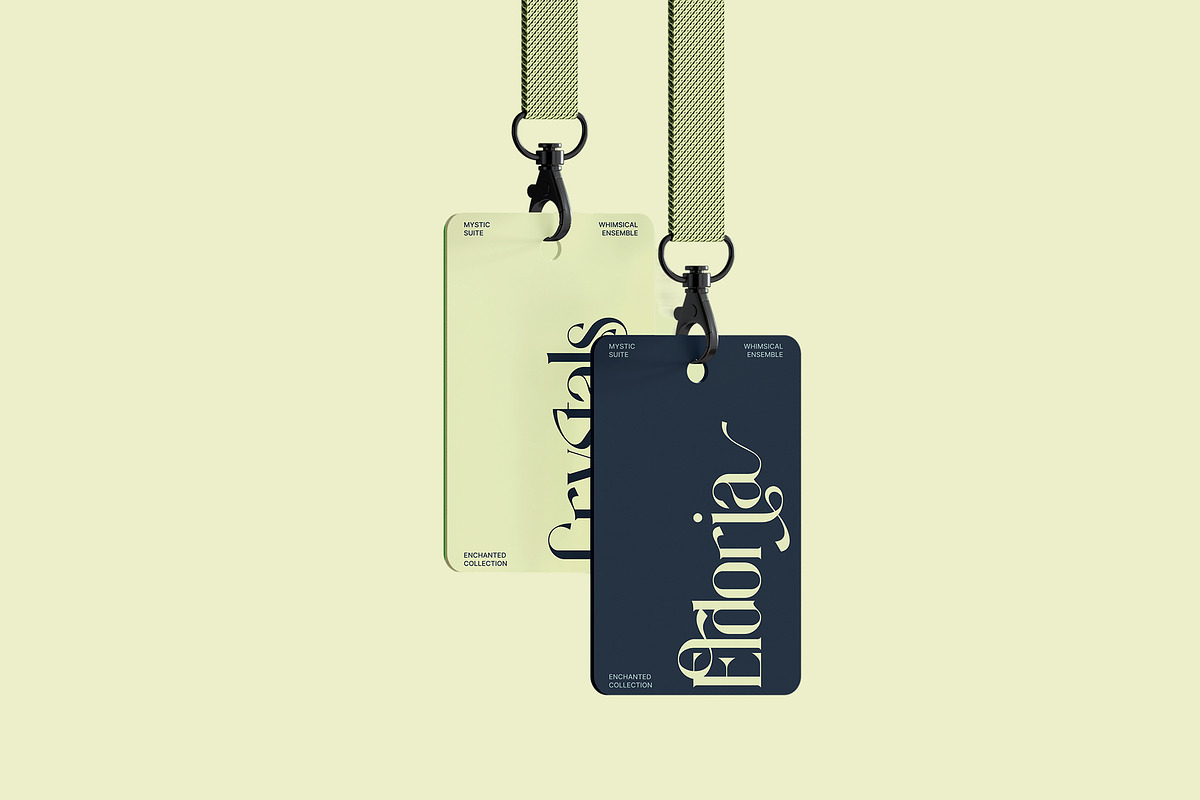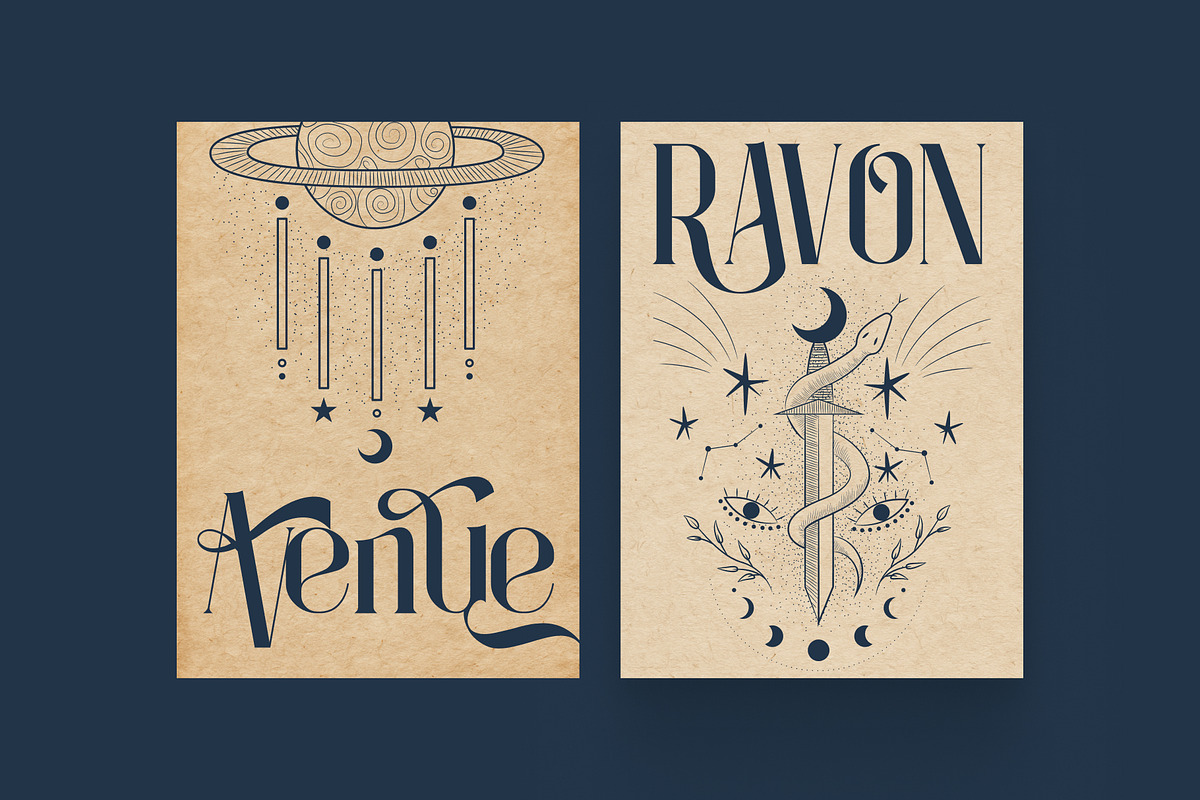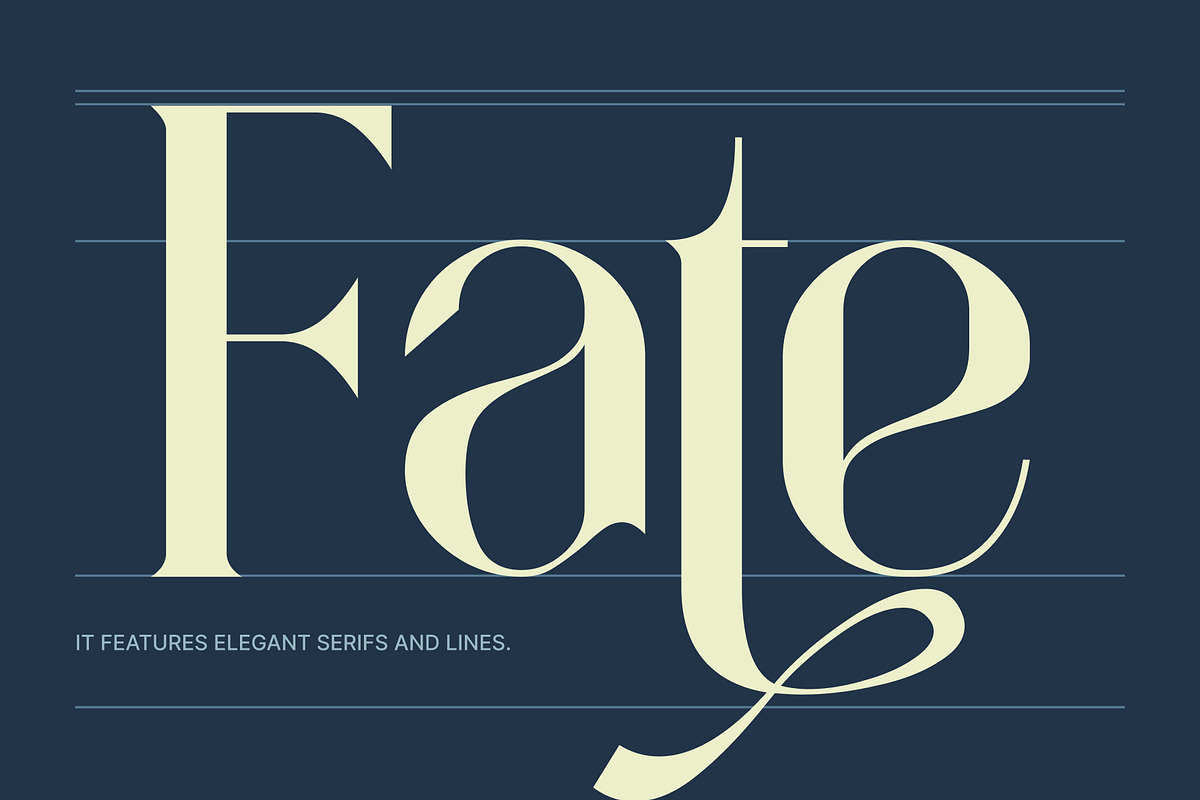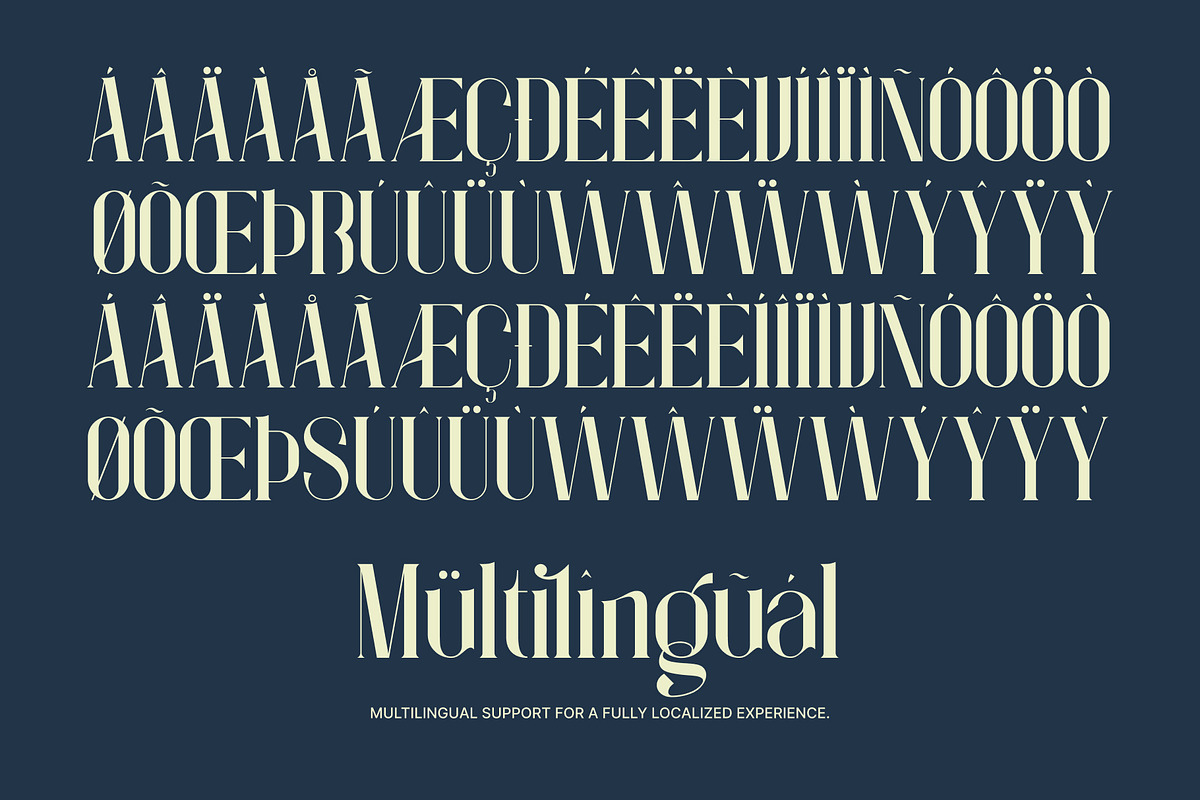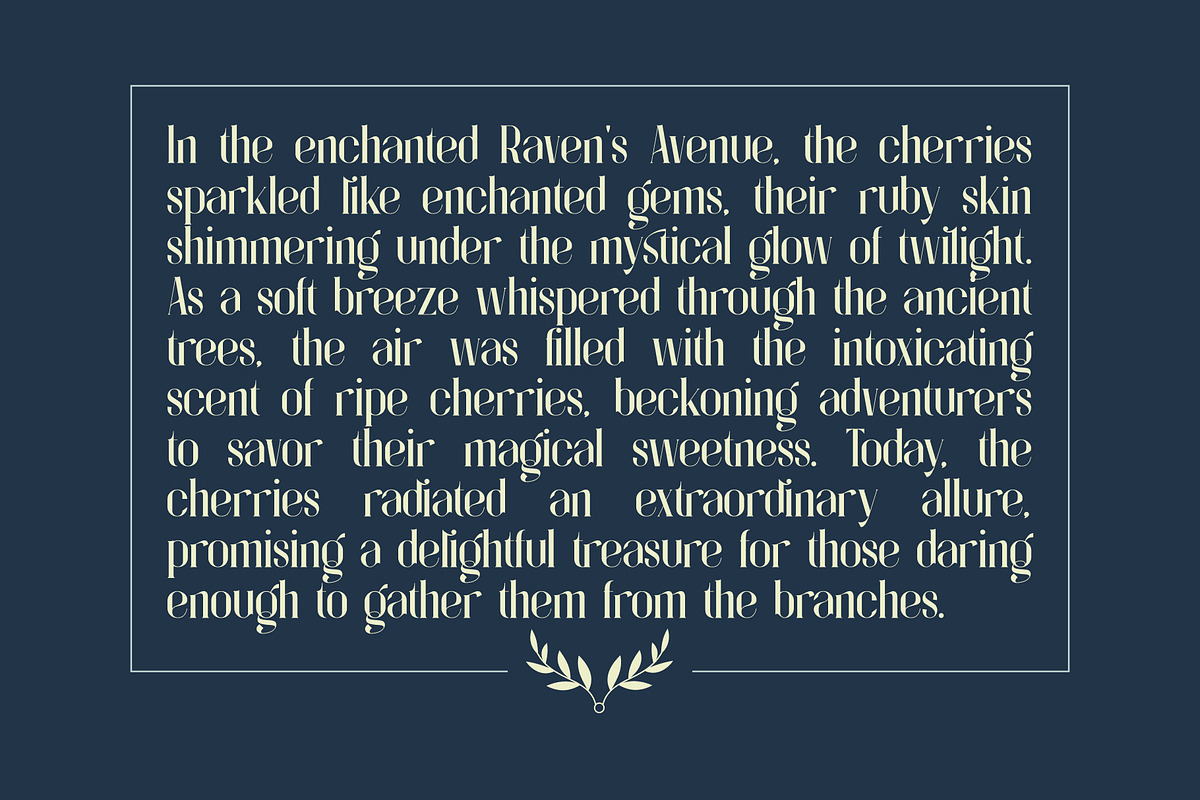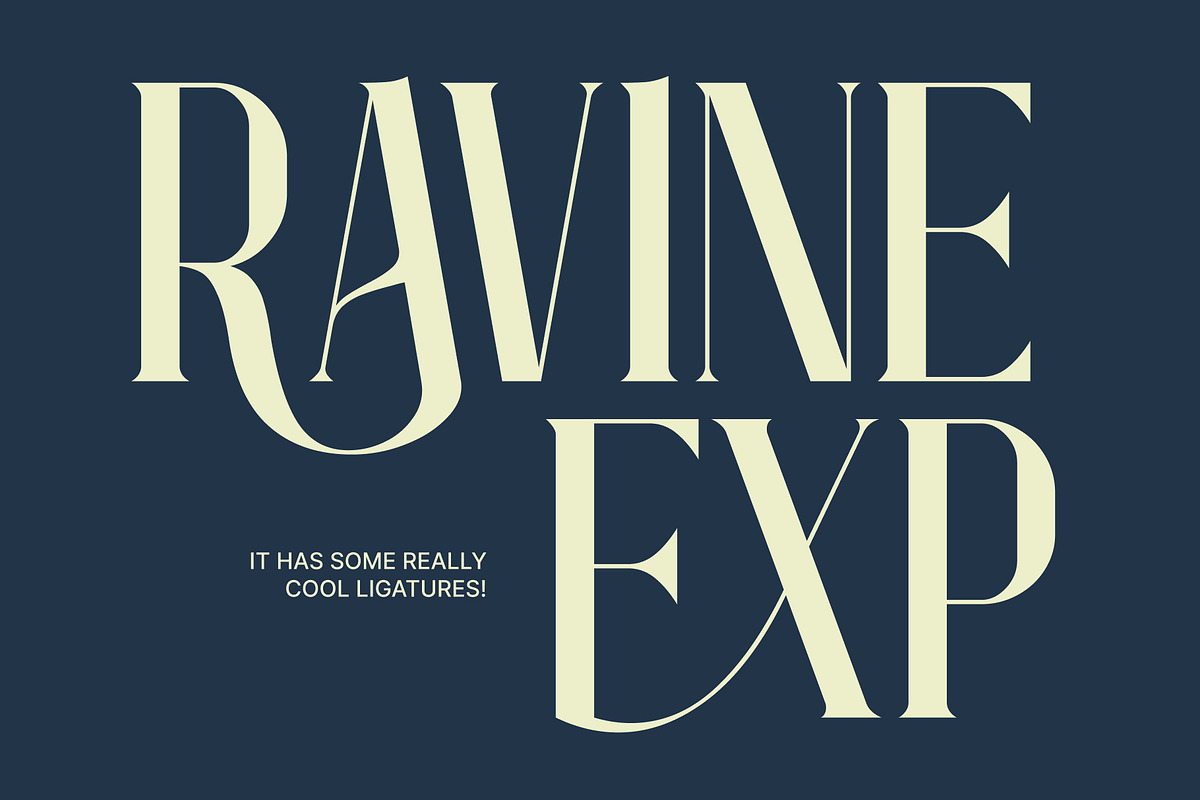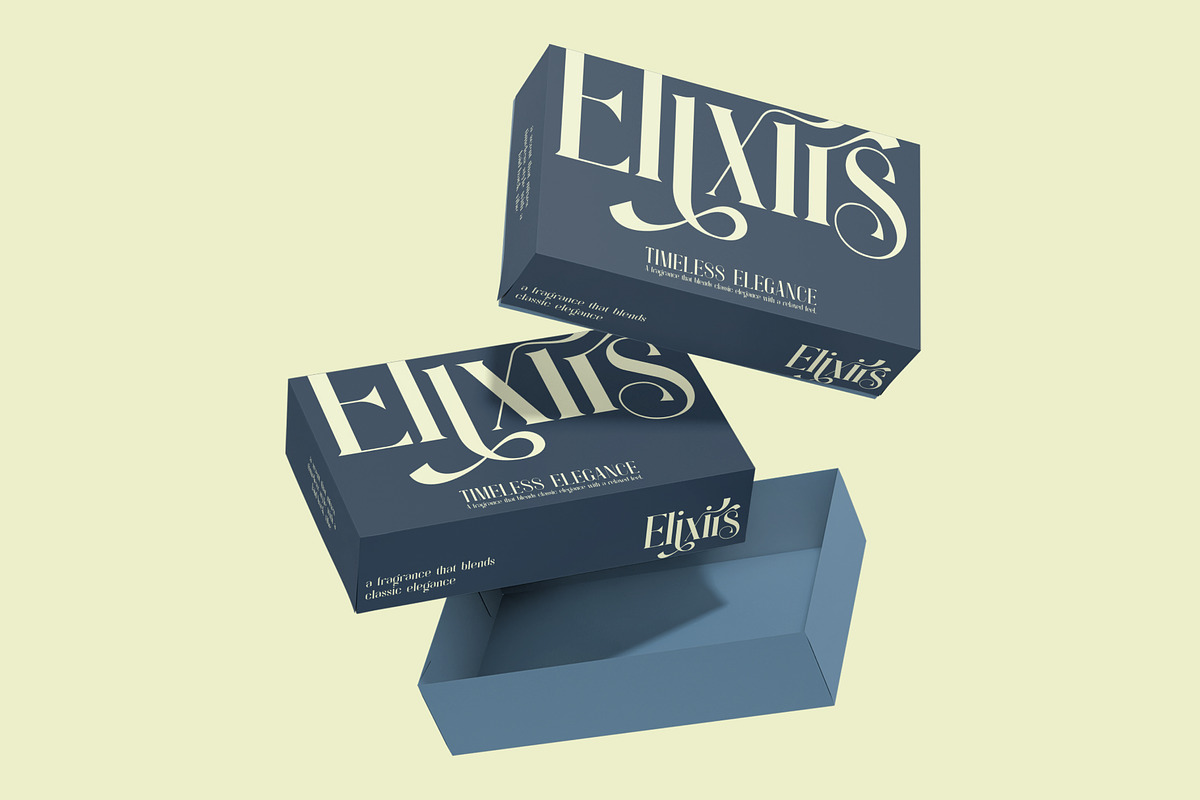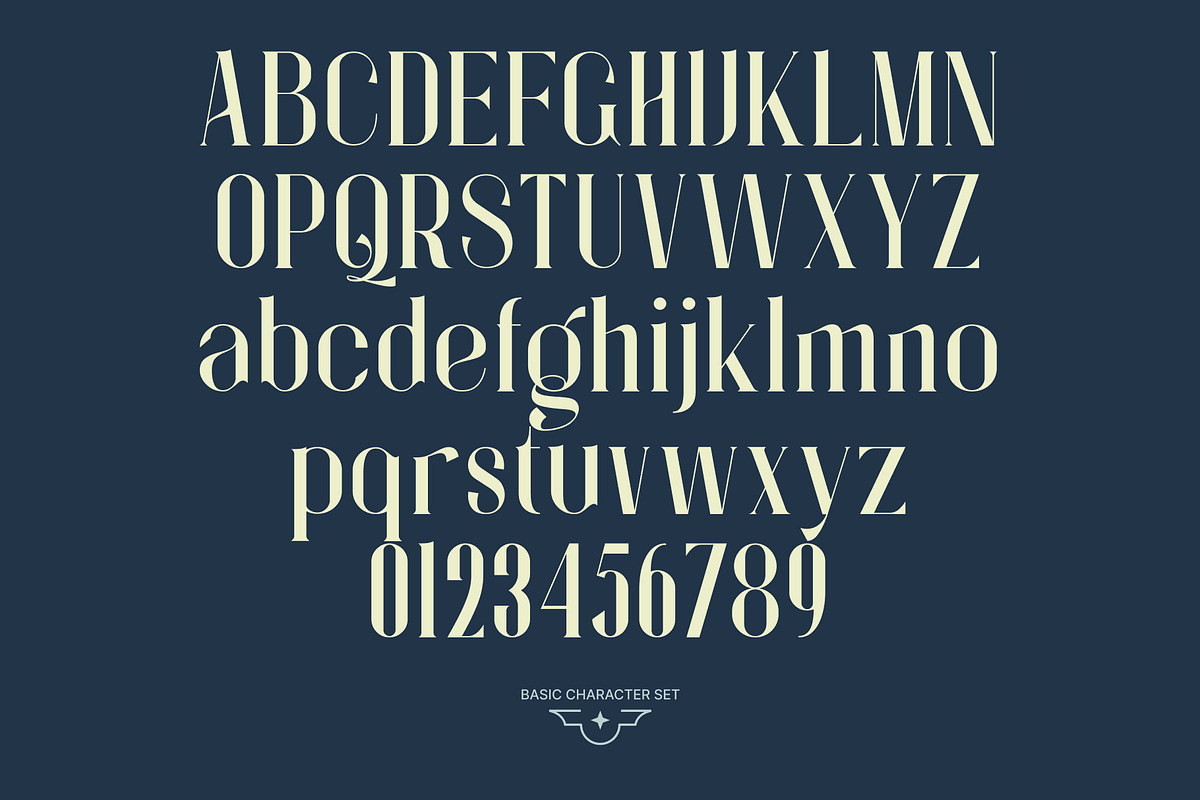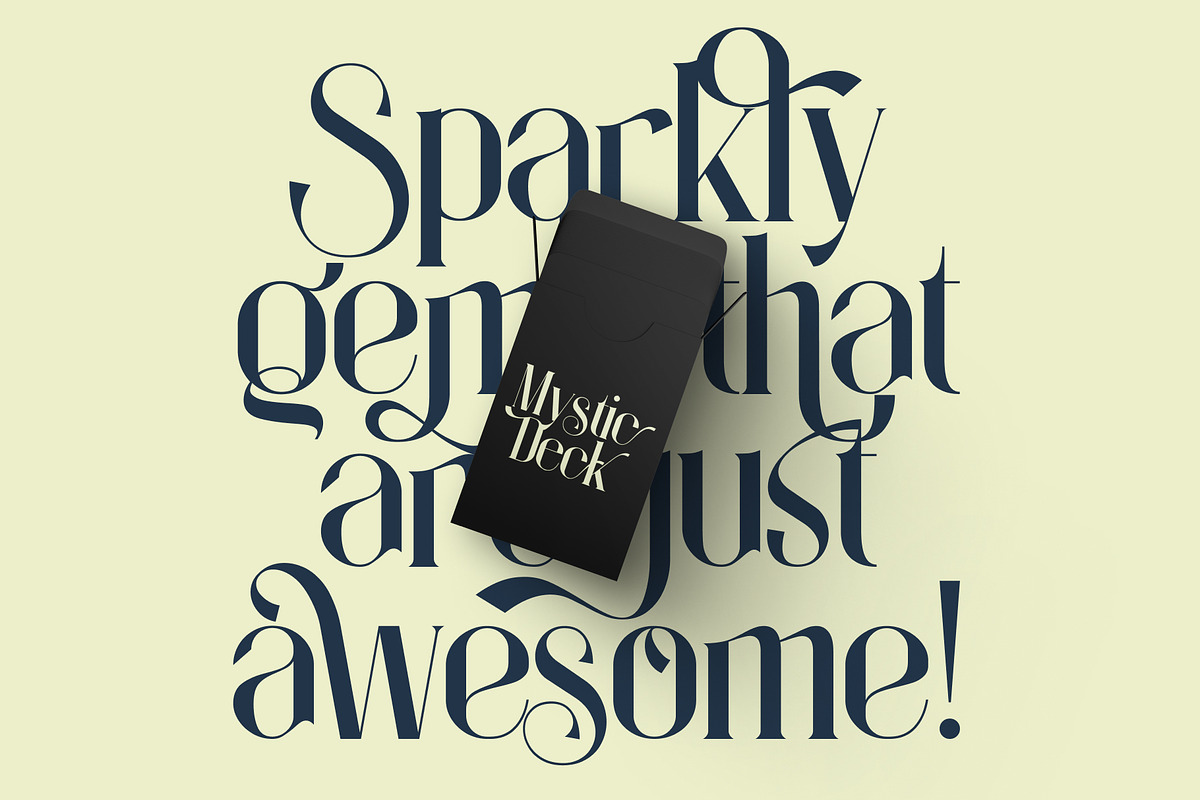
Arcane Whispers: Mystical Font
Unleash the enchantment with Arcane Whispers, a captivating display font that blends classic elegance with a touch of the mystical. Inspired by timeless serif styles and reimagined with magical swashes and intricate ligatures, this font is perfect for projects that demand a whisper of wonder. Evoke ancient secrets, celestial beauty, and whimsical charm in your designs. Ideal for branding, invitations, book covers, product packaging, and anything that needs an air of sophisticated magic. Let Arcane Whispers transform your typography into an unforgettable spell!
- ligature and alternates feature